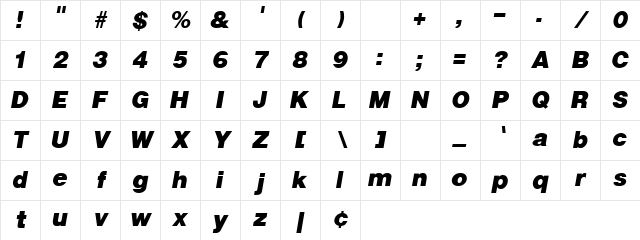
Necessity Oblique Free Font
Necessity Oblique
Necessity Family
Design Context for Necessity
Necessity is a composed and adaptable typeface that performs quietly and consistently across a wide range of design contexts. The slanted form adds forward momentum and visual energy.
Pro Tip: Use Necessity for emphasis, pull quotes, and subheadings where its slanted energy can add rhythm to the layout.